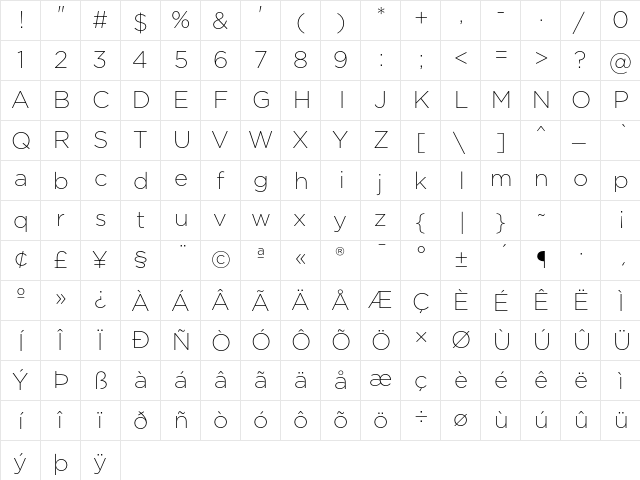
Gotham Extra Light
| Foundry | Hoefler & Frere-Jones |
| Designer | Tobias Frere-Jones |
Design Context for Gotham Typeface
Gotham takes a measured approach to typography — its balanced proportions and neutral character make it a reliable workhorse for both digital and print work. The delicate stroke weight brings airiness and refinement to layouts.